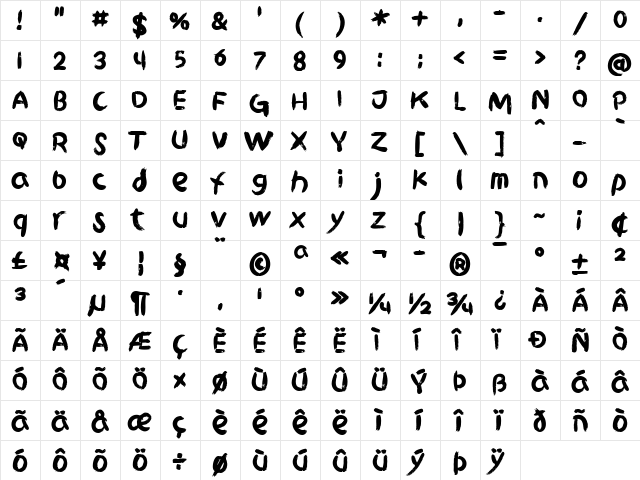
Griphite Black PERSONAL USE Regular
Design Context for Griphite Black PERSONAL USE Typeface
Griphite Black PERSONAL USE is a composed and adaptable typeface that performs quietly and consistently across a wide range of design contexts.